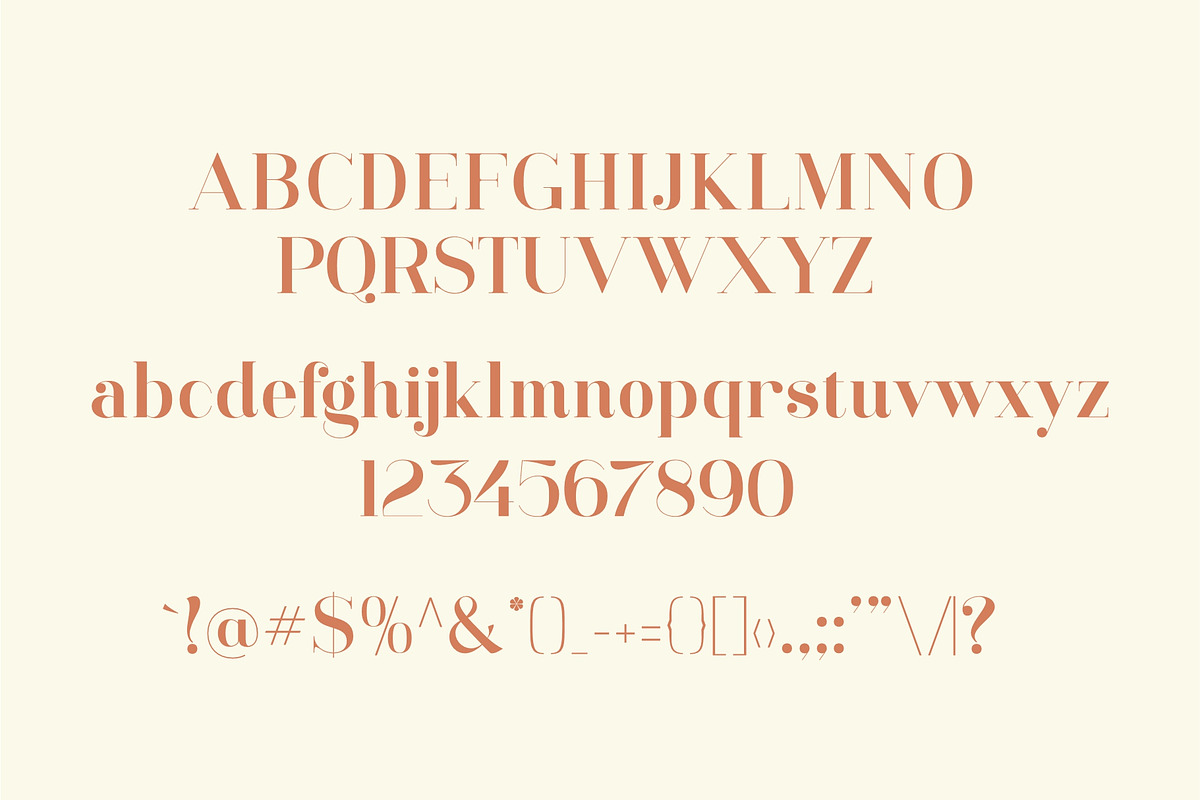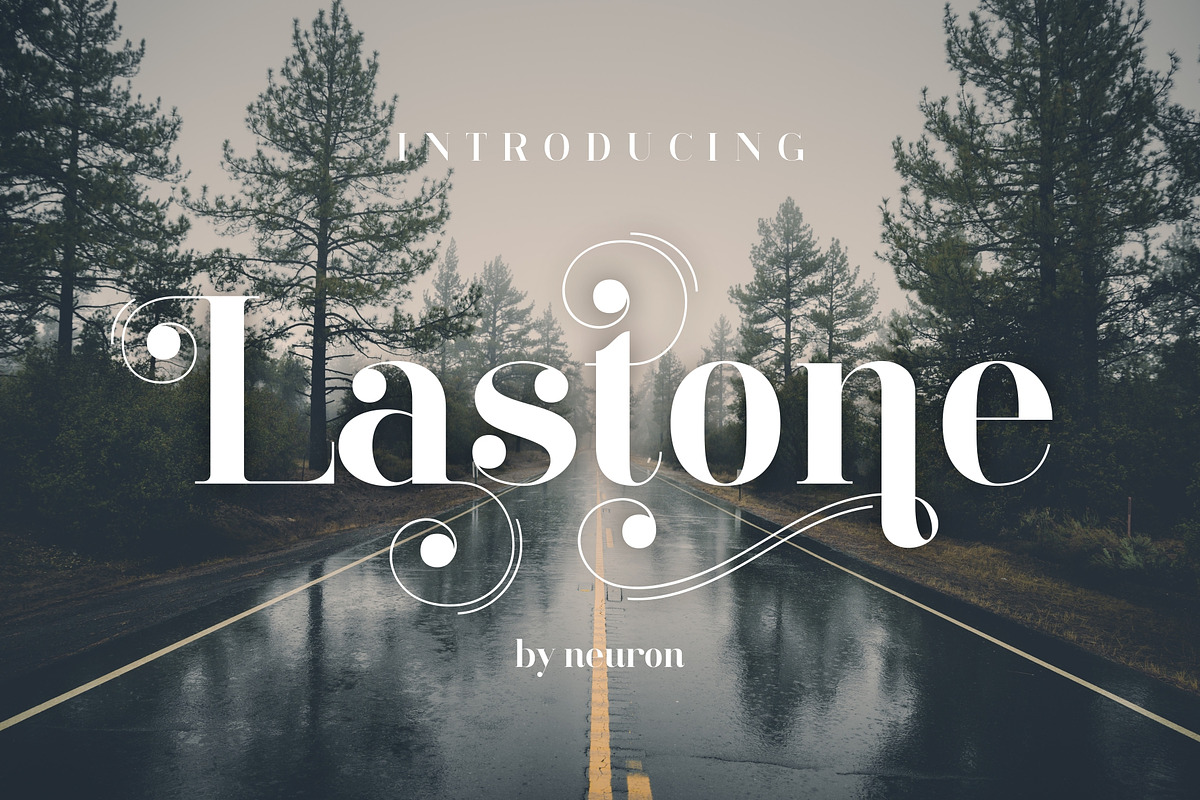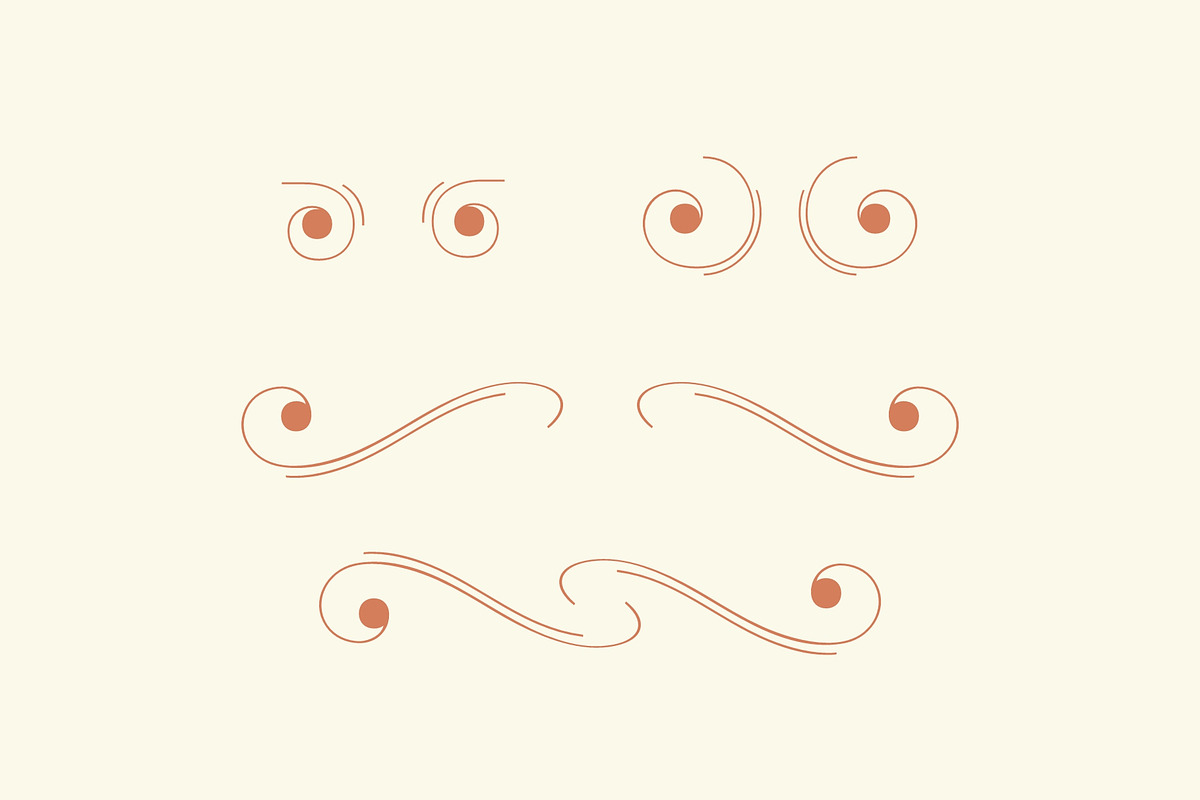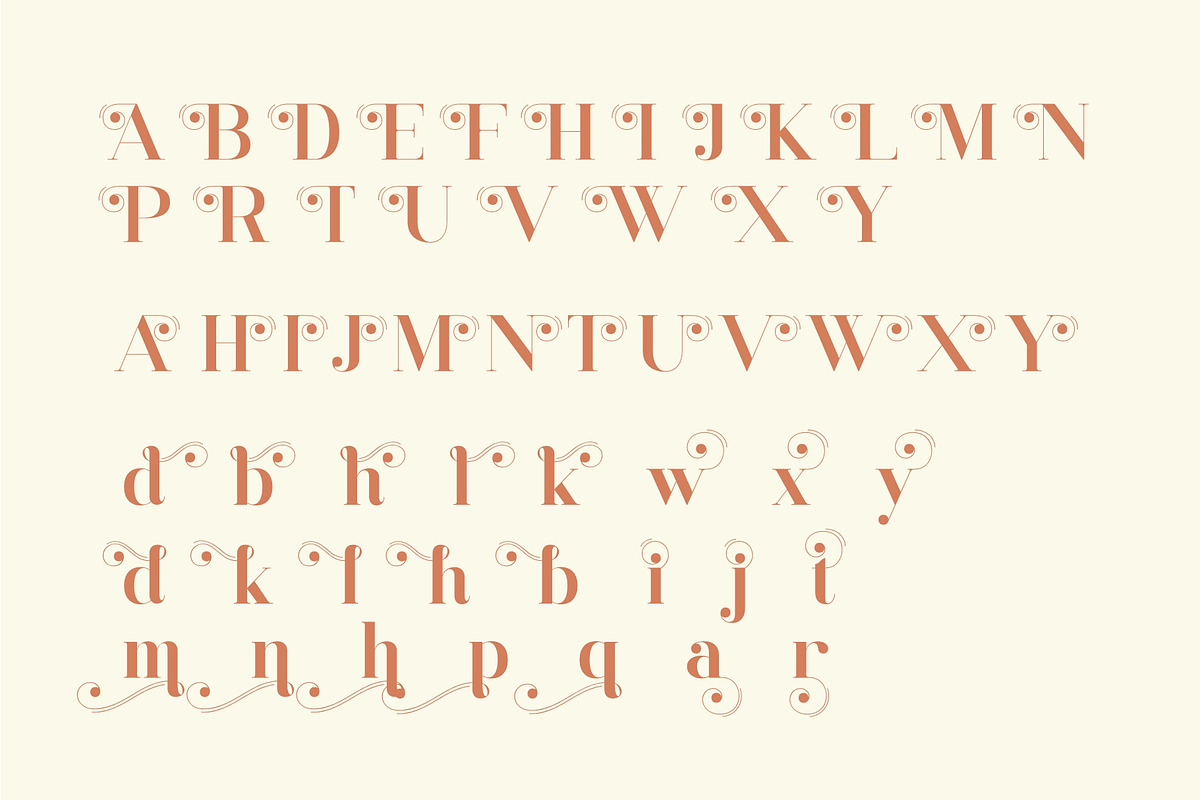
LastOne Display
LastOne Display Font is a high contrast serif font with unique tails, alternate, and extra ornaments. Numbers and punctuation included, multilingual support. Be ignite by his persona.